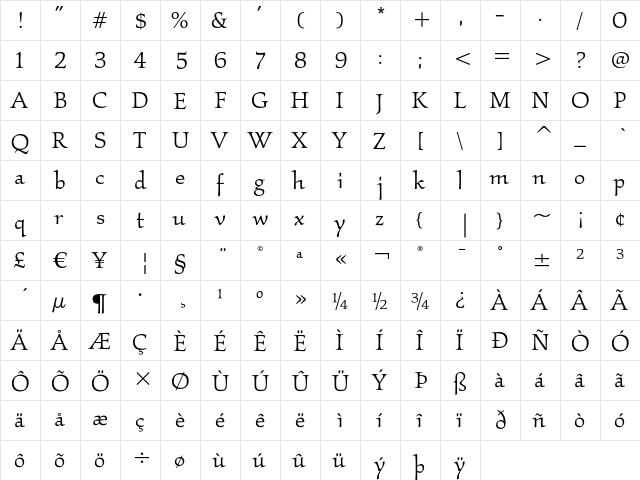
Kallos ITC Book
Design Context for Kallos ITC Typeface
Kallos ITC takes a measured approach to typography — its balanced proportions and neutral character make it a reliable workhorse for both digital and print work.